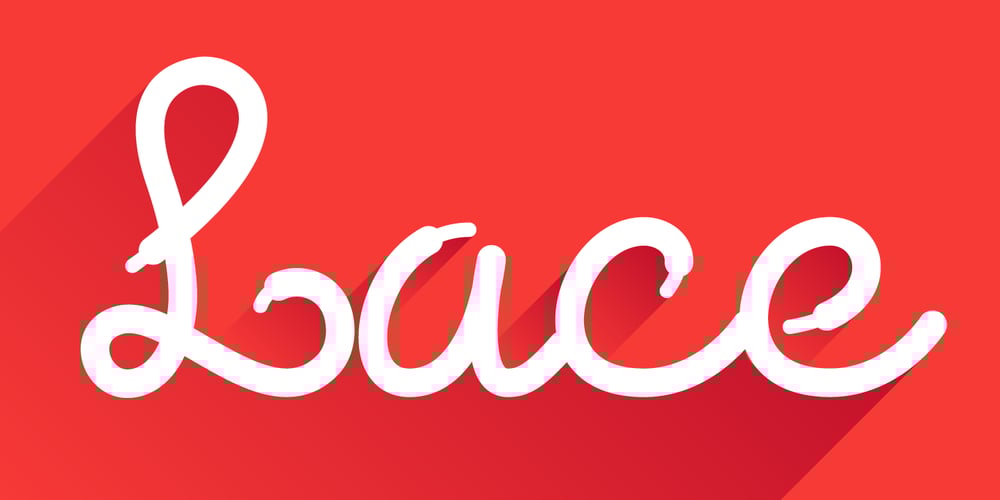
Lace Line Font Family was designed by Roman Korolev and published by Kaer. Lace Line contains 1 styles and family package options. Hi, I’m the Lace line font!I’m drawn by hand. Each of my letters is a curved lace! I will perfectly fit sports design either it is a print, a sports team logo, or even the score of the match.I include Latin uppercase, lowercase, numbers and special symbols. So that I’m even more attractive my designer Kaer created a lot of great ligatures. I’m young and cool! Let’s go, go, go!